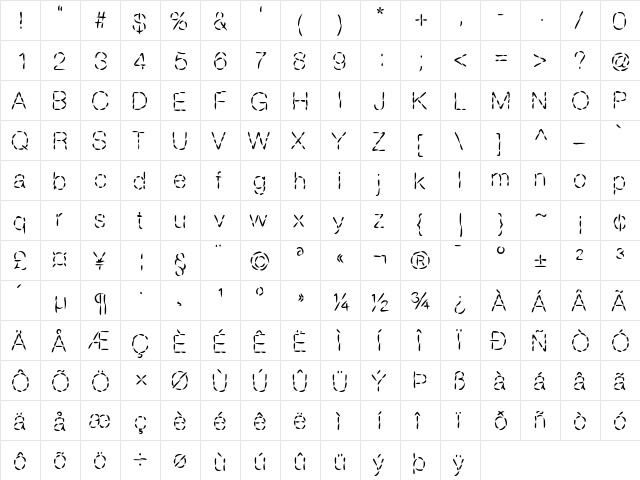
Sans couture Medium
Design Context for Sans couture Typeface
Sans couture is a composed and adaptable typeface that performs quietly and consistently across a wide range of design contexts.